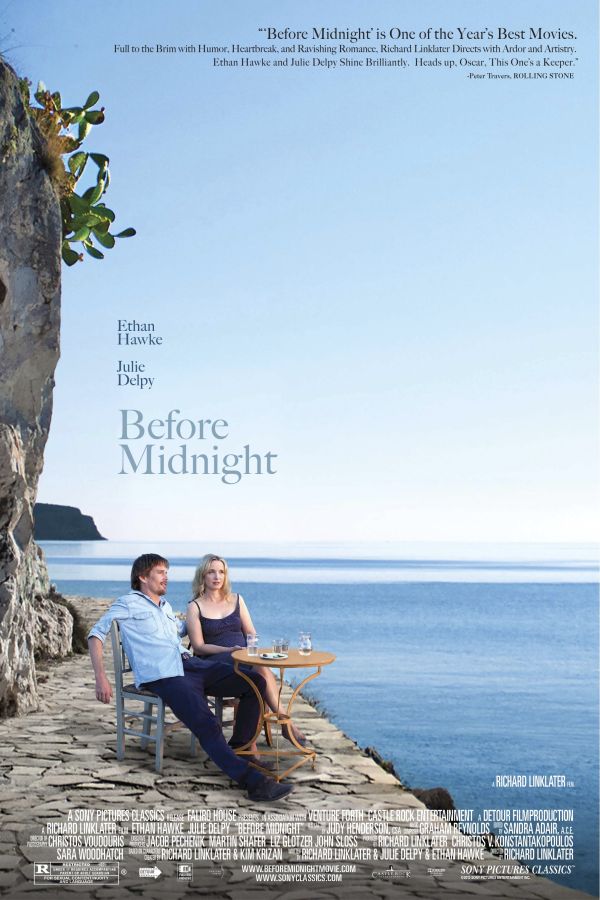
Before Midnight Font
Fonts in UseBefore Midnight is a 2013 film directed by Richard Linklater. It is the third installment in the "Before" trilogy, following Before Sunrise (1995) and Before Sunset (2004), and continues the story of Jesse (Ethan Hawke) and Celine (Julie Delpy) as they navigate the ups and downs of their long-term relationship.
Big Caslon CC is likely the font utilized for the movie title on the poster. It is a revival design created by Matthew Carter of Carter & Cone in 1994, and it is based on the three largest sizes of type from the H.W. Caslon & Sons foundry.